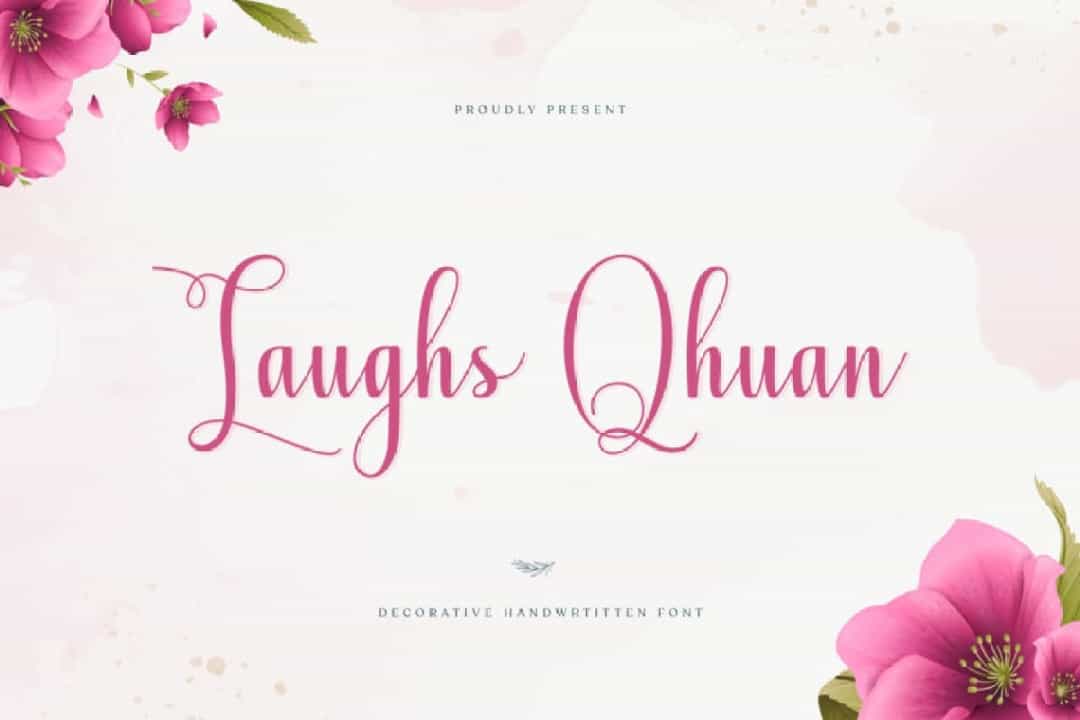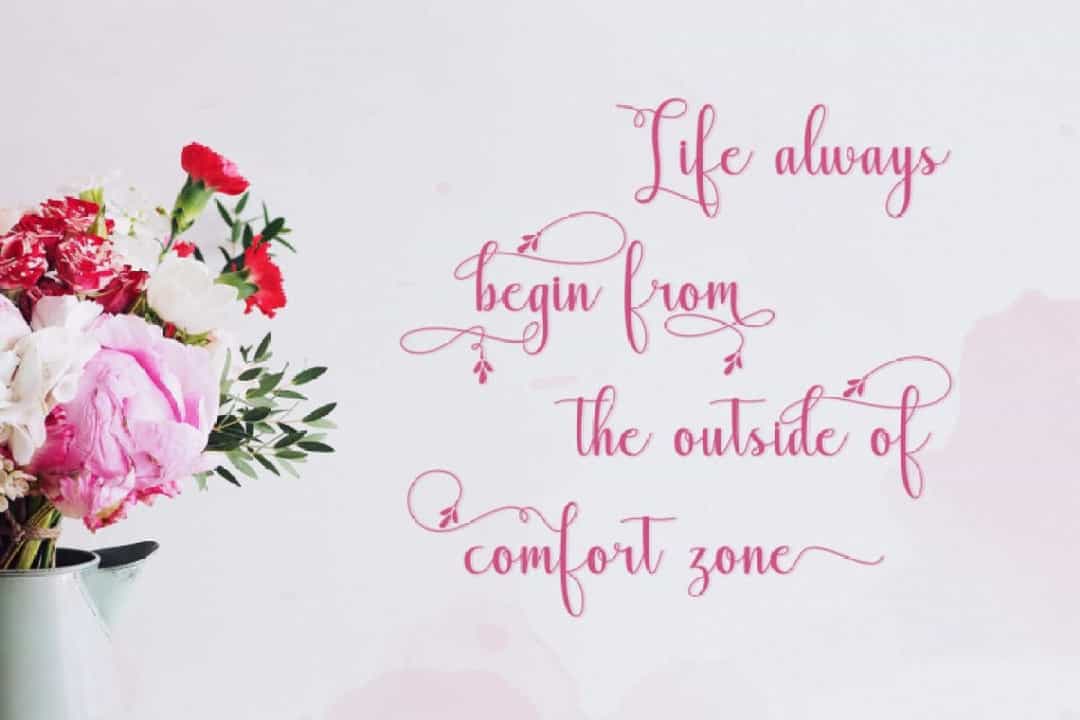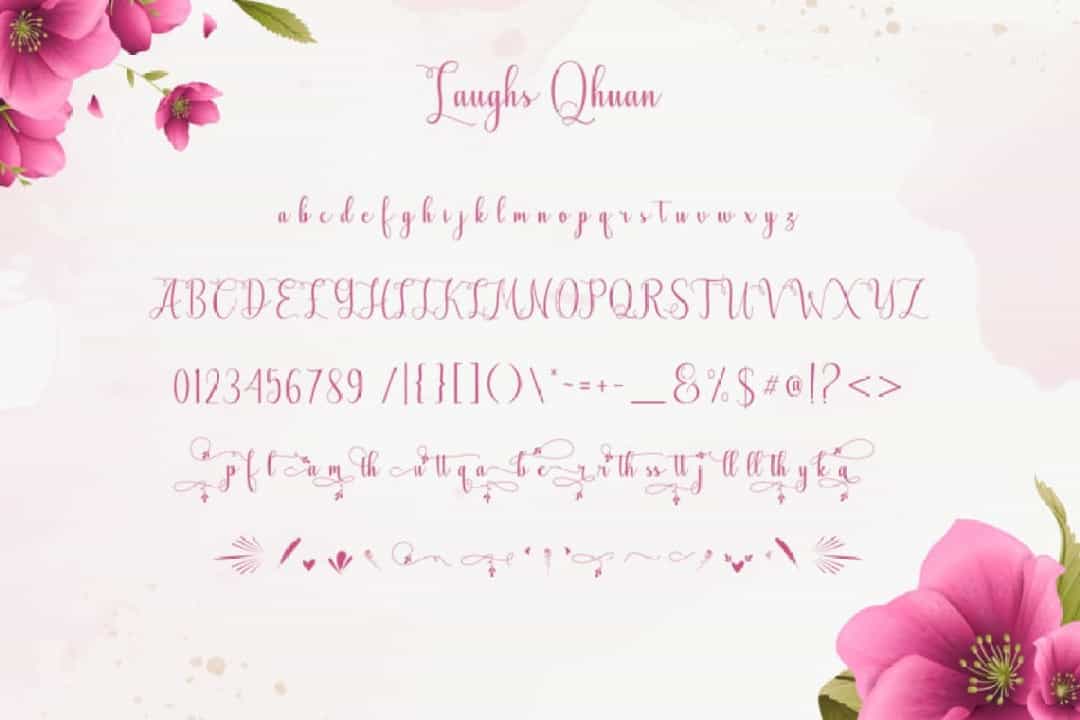
Discover Laughs Qhuan Calligraphy Script Font, part of the Calligraphy Handwritten Script collection—a versatile and unique font perfect for adding a personal touch to your projects. Download it for free and enjoy crafting designs with style, from invitations to social media posts. This font is available exclusively for personal use, giving you the freedom to create without limits. Unlock your creativity with Laughs Qhuan Calligraphy Script Font today!
Laughs Qhuan is a beautiful font for calligraphy with unique letters that make the font beautiful. Moreover, PUA encoded typeface enables one to easily access Swashes and Glyphs. There are countless amazing possibilities to use it for creative designs; this is why you will be fascinated by it!